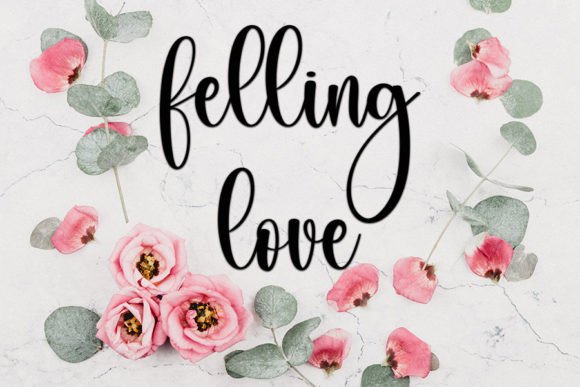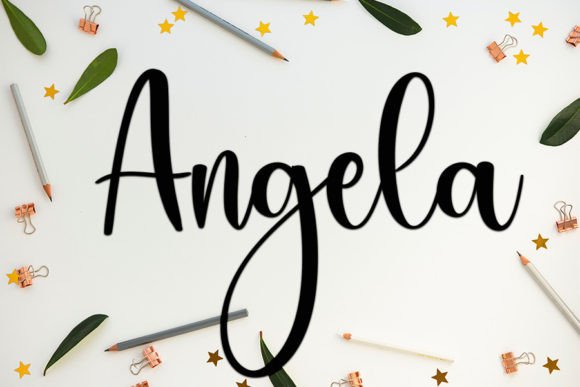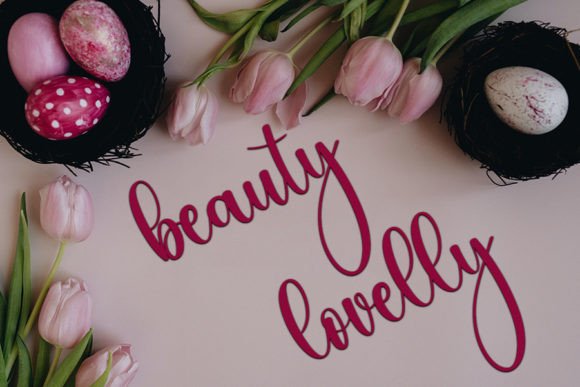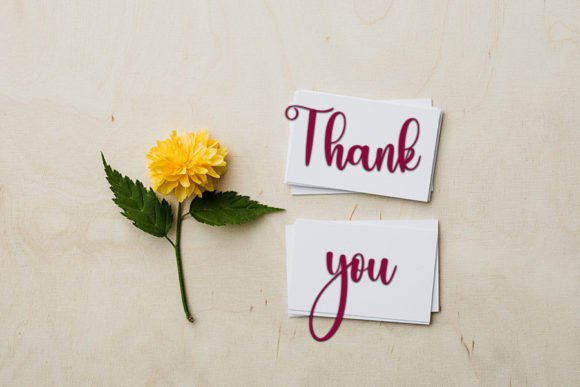
Thinking Font
The Thinking Font Download is a neat and beautiful handwritten typeface designed with an elegant touch. Its flowing strokes and timeless character make it an excellent choice for creative professionals and hobbyists alike. Whether you are designing wedding stationery, personal notes, or bold branding projects, Thinking adds charm, personality, and sophistication to your work.
A Neat and Elegant Handwritten Typeface
The Thinking script font blends classic handwritten rhythm with a modern design flow. As a result, it feels polished yet warm. Furthermore, its balance of clean curves and smooth lines ensures that every design looks professional while still retaining a personal touch.
Handwritten fonts always bring a special feeling to stationery. The Thinking Font is ideal for wedding invitations, thank-you cards, birthday greetings, and seasonal holiday notes. Because of its elegant form, each piece of stationery feels unique and meaningful. In addition, it helps elevate even the simplest cards into timeless keepsakes.
Branding and Logo Design with Thinking Font
Typography plays a central role in branding. The Thinking handwritten font is an excellent choice for boutique logos, product packaging, and promotional campaigns. Its refined handwritten style conveys creativity and trust, making it especially effective for fashion, lifestyle, and handmade industries.
Posters, Editorials, and Display Designs
The Thinking Font Download also performs well in posters, magazines, book covers, and inspirational quotes. Its natural script ensures readability while adding flair. Consequently, it is a dependable font for projects where both clarity and beauty matter.
In today’s digital age, fonts must work across multiple platforms. The Thinking typeface integrates seamlessly into Instagram graphics, Pinterest boards, YouTube thumbnails, and blogs. Because of its stylish handwritten flow, it brings energy and elegance to digital content, making it more engaging and memorable.
Why Designers Choose Thinking Typeface
Designers appreciate fonts that balance aesthetics with usability. The Thinking handwritten script offers elegance without sacrificing legibility. Moreover, its timeless style ensures it remains a versatile option for future creative projects.
Add Elegant Charm to Your Projects Today